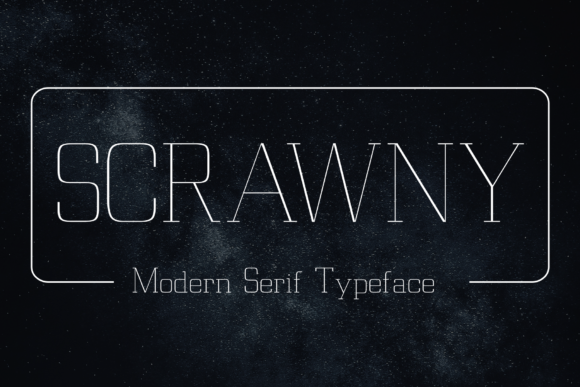
Introducing Scrawny Font - A Masterpiece for Design Royalty
In the realm of typography, there reigns a font of rare distinction, a font that exudes elegance and refinement like no other - Scrawny Font. Crafted meticulously by the esteemed Roman Caseru, Scrawny is a serif font of unparalleled beauty and versatility, poised to transform your creative visions into design masterpieces.
Unleash the regal charm of Scrawny upon your branding and logo design projects, and watch them radiate an aura of timeless sophistication. As a serif font, Scrawny possesses graceful curves and stylish serifs, lending an air of luxury and prestige to every letterform. It's the perfect font for those who seek to elevate their designs to the realm of royalty.
With Scrawny as your typographic weapon, conquer the world of magazine design. Its refined strokes and elegant proportions make it the ideal font for creating captivating headlines, alluring body text, and enchanting captions that dance off the page and leave readers spellbound.
Step into the spotlight of graphic design with Scrawny, the font that commands attention. Its distinct personality and eye-catching details make it the perfect choice for posters, flyers, and social media graphics that demand to be noticed. Scrawny's regal presence will ensure your designs stand out from the mundane and leave a lasting impression on your audience.
Embark on a creative journey with Scrawny Font, the font that ignites imagination and empowers designers to transcend the ordinary. Its expansive character set, including uppercase and lowercase letters, numerals, and a treasure trove of punctuation marks, provides limitless possibilities for creative expression. Unleash your inner artist and craft designs that captivate, inspire, and leave an indelible mark on the world.